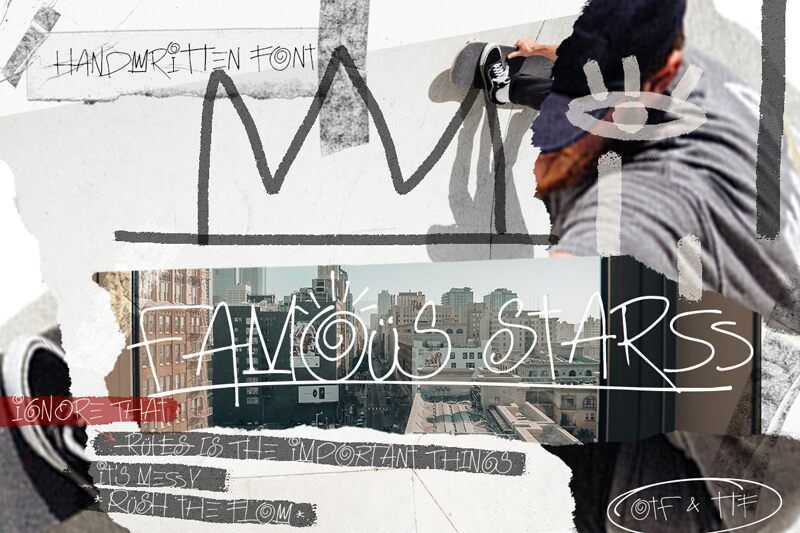
Famous Starss font family by dancubs contains 2 font styles with a handwritten look. Expressive and artistic, these fonts stand out with their spontaneous and dynamic letterform designs that add an informal, contemporary edge. Famous Starss is energetic and experimental; it finds inspiration in urban environments and subcultures.
Use Famous Starss in edgy pop culture magazines and youth-centric publications, urban apparel branding materials, and album titles and posters for electronica or techno events. The fonts are ideal for posters and digital designs as well as websites and phone app designs whenever you need something informal.